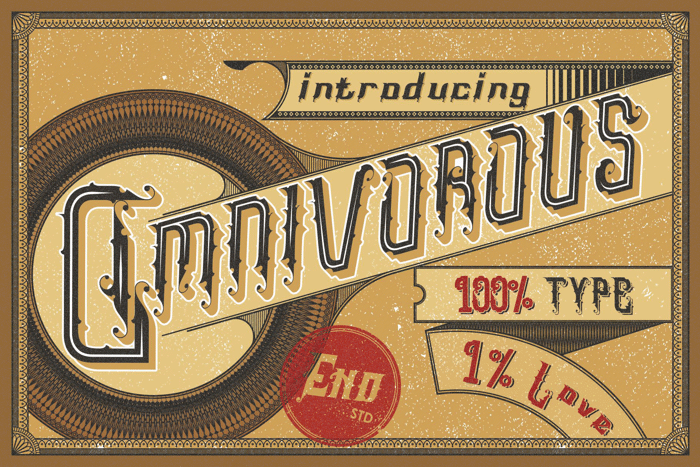
Omnivorous Regular 02 Font
Omnivorous is Decorative font inspired from Victorian style typeface. Traditional Style with 10 Font Style you can use to make Letterhead, T-shirt, Label or anything you want. Just Unzip The ZIP to get the OTF and TTF file and get everything done perfectly... Boom.